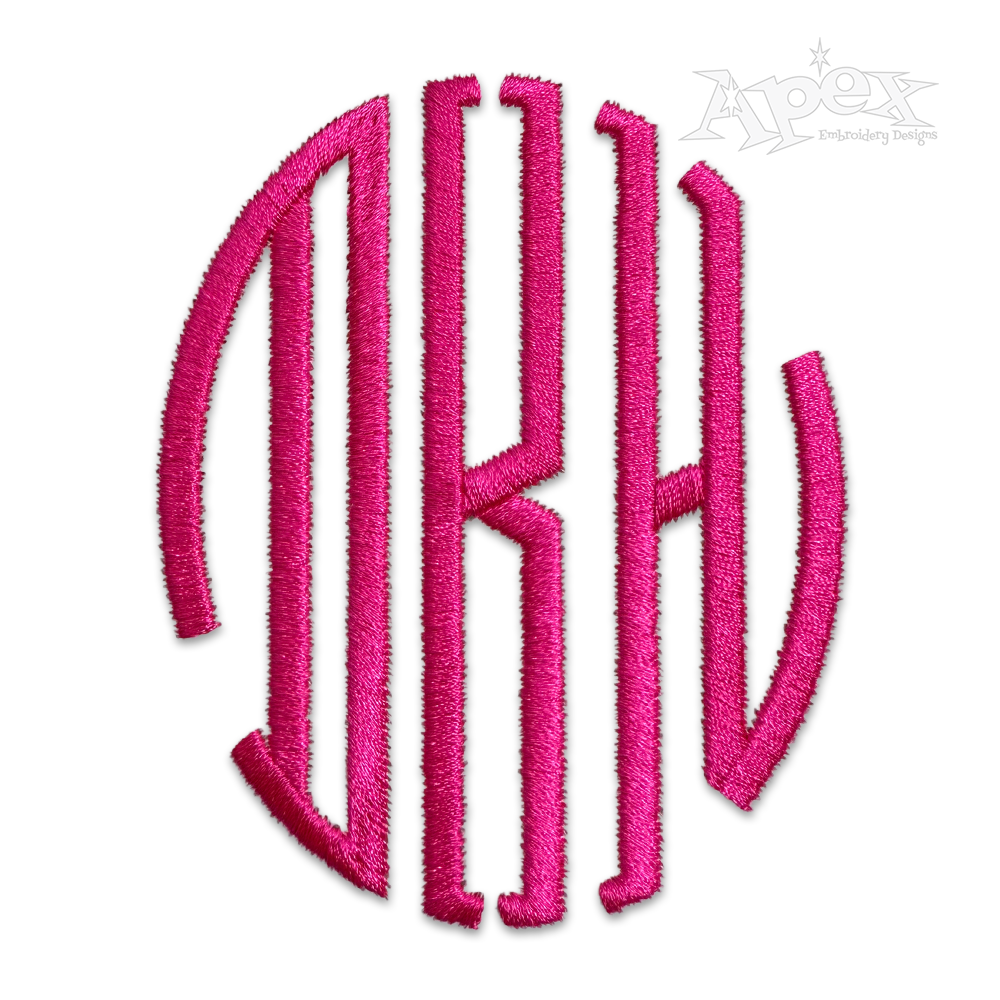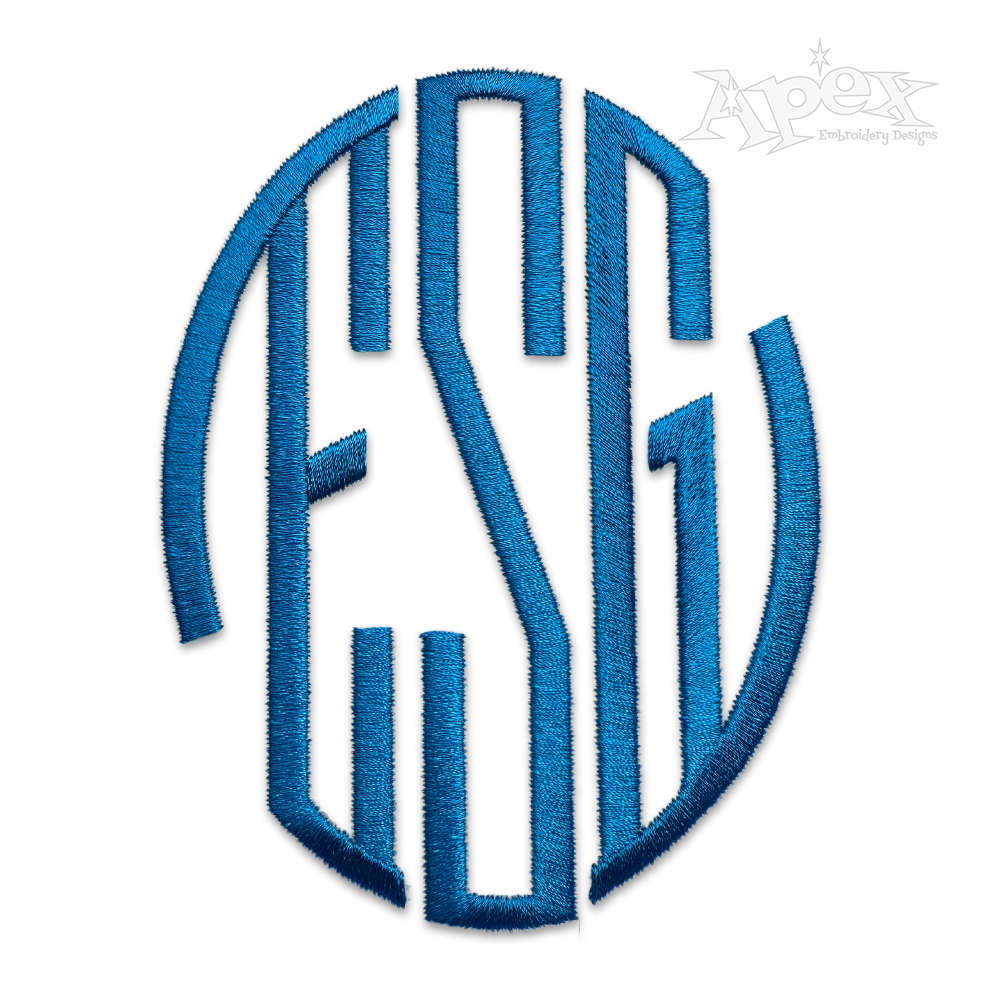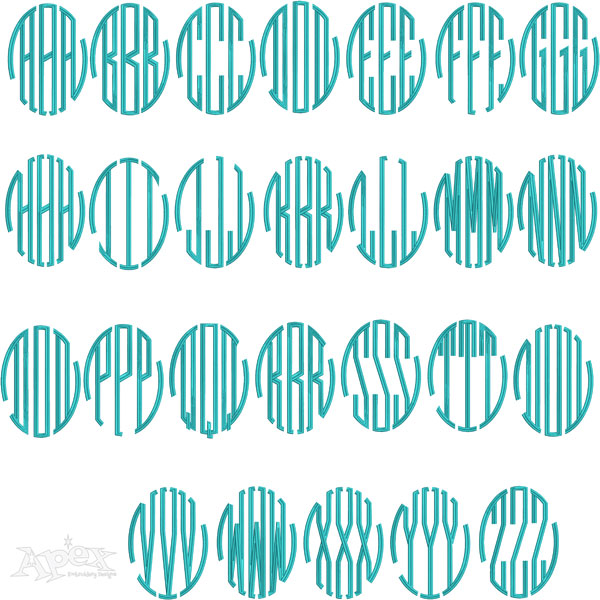
Round Tail Monogram Embroidery Font
There is an undeniable magic when three separate initials lock together to form a perfectly balanced medallion, echoing the timeless allure of vintage signet rings and bespoke seal-engraved stationery. When digitizing the Round Tail Monogram, our studio reimagined the classic circular silhouette with softer, sweeping lower arcs?distinctive curved tails that gracefully frame and cradle the central capital. Designed to lend an air of refined poise and tailored elegance to fabric, this font transforms everyday woven textiles into cherished heirlooms through the pure, luminous rhythm of directional satin stitches.
Every size in this collection has been individually digitized and scaled from original artisan vector drawings to preserve optimal stitch density, smooth underlay foundation, and crisp contours across both delicate accessories and grand statement pieces. Each set provides dedicated Left, Middle, and Right letterforms to assemble a balanced three-initial crest:
Project Ideas for Round Tail Monogram
The self-contained circular silhouette of the Round Tail Monogram acts as an instant designer emblem, pairing wonderfully with traditional heirloom embroidery projects as well as modern bespoke gifting:
- Luxury Table Linens: Embroider the 2-inch or 3-inch monogram on crisp hemstitched linen napkins and placemats for elevated dinner parties and unforgettable bridal registry gifts.
- Heirloom Bedding & Bath: Crown master bedroom duvet covers, euro shams, and plush Egyptian cotton bath sheets with the grand 6-inch or 8-inch crest.
- Bespoke Resort Wear: Stitch the 3-inch or 4-inch motif onto the back of linen pool shirts, silk getting-ready robes, or lightweight beach cover-ups.
- Heavyweight Canvas Totes: Add timeless country-club charm to weekend boat bags, tennis carryalls, and market totes using the bold 4-inch or 5-inch scales.
- Personalized Bridal Keepsakes: Stitch delicate 1-inch initials into vintage-style handkerchiefs, ring bearer pillows, or customized dress sashes for the wedding party.
Because this font forms a balanced circular boundary, it positions effortlessly across corners, plackets, and open center panels:
- Corner Diagonal: For dinner napkins and handkerchiefs, center the monogram along a 45-degree diagonal, set 1.5 to 2 inches inward from the corner hem for a balanced drape when folded.
- Center Chest: On sweatshirts, loungewear, or robes, place the 3-inch or 4-inch medallion centered horizontally, 7 to 9 inches below the left shoulder seam.
- Pillow & Sham Centering: For decorative bedroom shams or accent toss pillows, center the 5-inch or 6-inch monogram directly at the mathematical midpoint to create an unmistakable focal anchor.
- Tote Exterior Pocket: Center the 4-inch motif squarely between pocket seams on canvas bags, ensuring adequate clearance from upper topstitching.
- Shirt Cuff & Placket: Align the petite 1-inch scale centered 1 inch above the buttoned cuff edge or positioned directly below a polo placket for subtle, bespoke haberdashery flair.
Round Tail Monogram Craft & Letterform Details
Digitizing a circular monogram requires a master's understanding of balance, tension, and structural geometry. A successful circle monogram cannot simply be warped into shape; it demands meticulous recalculation of stroke widths so the outer letters naturally curve into the center without distorting the legibility of the alphabet. In this Round Tail layout, the left and right letters feature elongated, sweeping lower tails that gently tuck under the center initial, unifying all three letters into a harmonious medallion.
Each stroke is engineered with dynamic satin stitch pathing, ensuring that the angles turn smoothly along every curve to maximize thread luster in natural light. We built targeted underlay structures that anchor the fibers of the fabric without creating bulletproof thickness, allowing your machine to glide smoothly whether embroidering on airy batiste or heavy duck canvas. The calibrated micro-spacing between the flanking wings and the central letter ensures flawless thread coverage while eliminating awkward overlap, giving you a masterfully finished crest every time you press start.